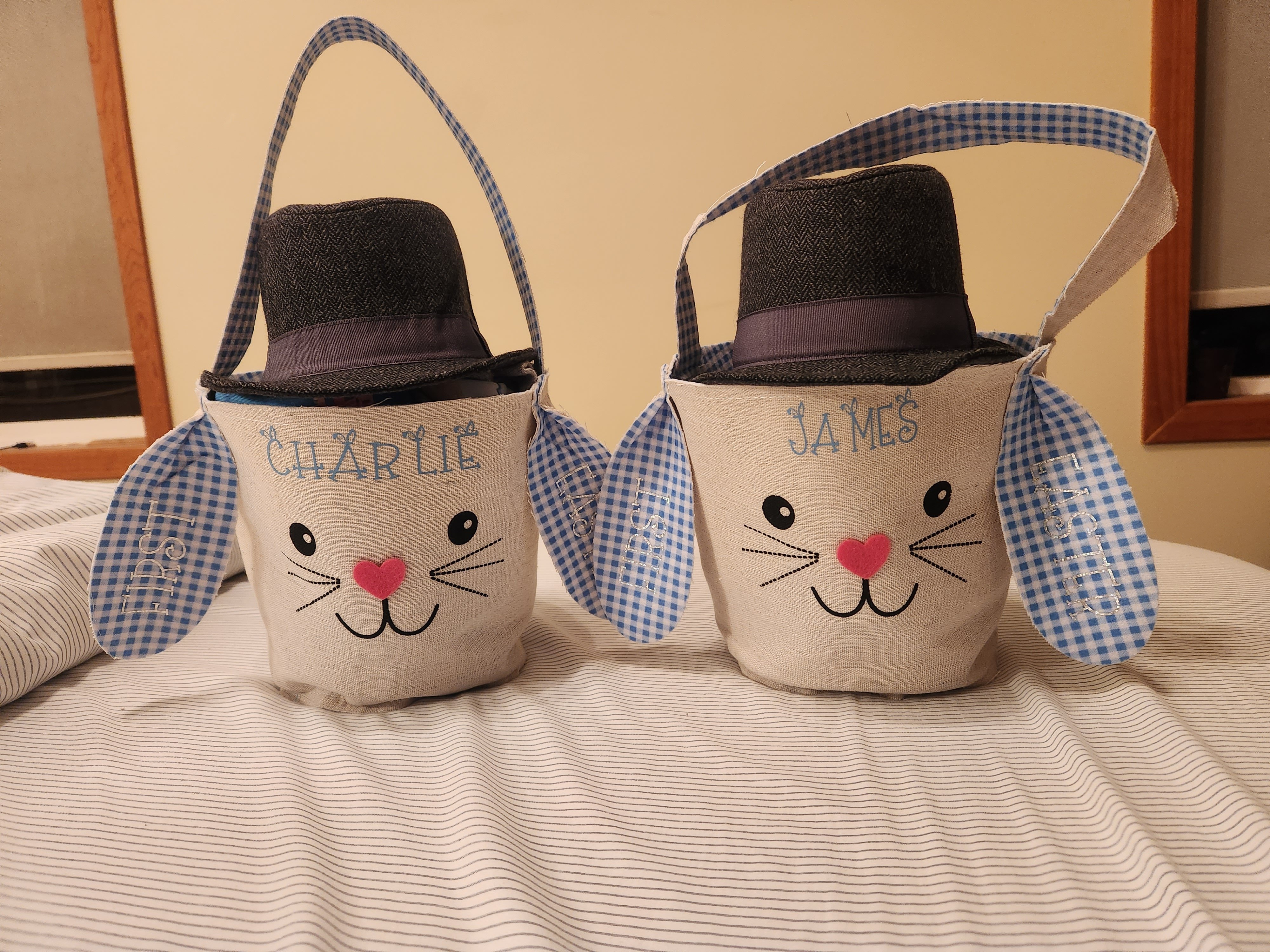
Ears to You Bunny Font
MME Ears To You
This is a great fun font for Easter! Great for Names!!
The Upper case letters have the Ears and the Lower case letters have no ears.
This font also includes several extra doodles, including Easter Eggs, Bunnies & Bunny Feet.
Love the ears on letters and the ability to do same font intermixed without them.
Ears to You Bunny Font